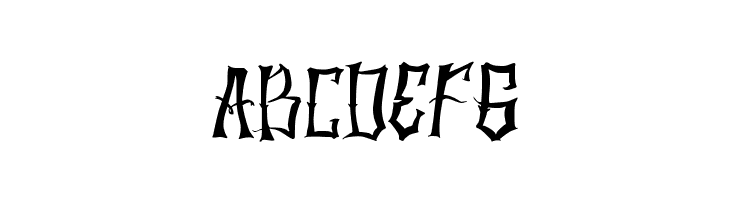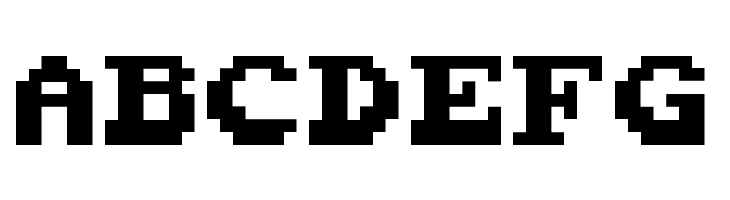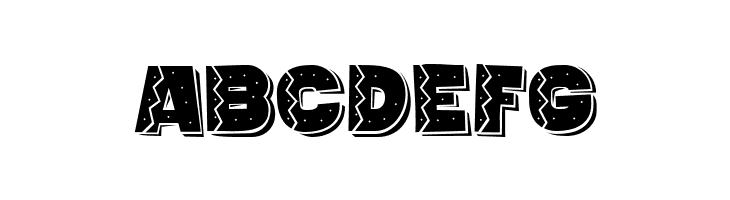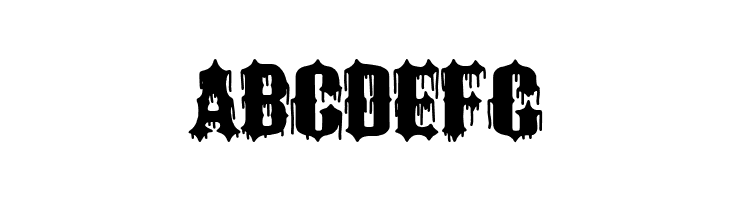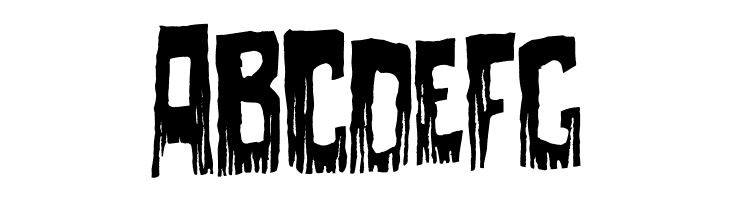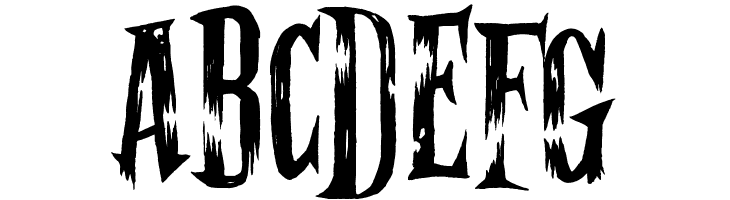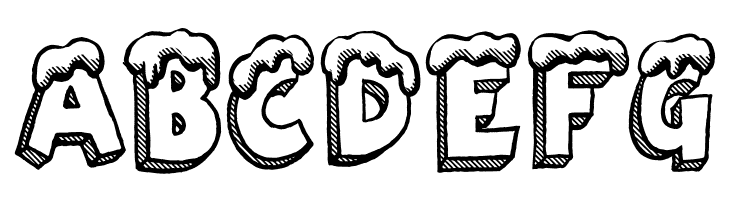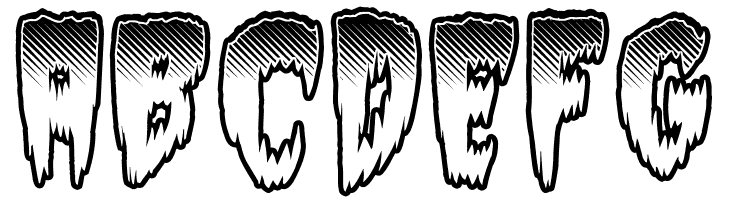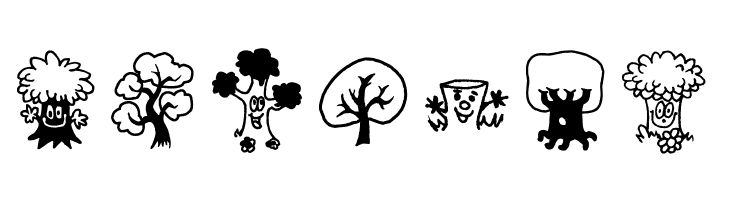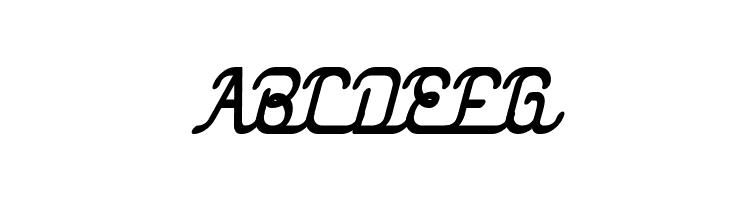
( MTF - Miss Tiina - misstiina.com )
A playful, doodle-style font with birthday-themed illustrations.
( Nirmana Visual - Sigit Dwipa - www.instagram.com/nirmanavisual/ )
A gothic, eerie font with sharp, angular characters ideal for horror themes.
( Omegaville - B.J. Winzer )
A bold, pixelated font with a retro, video game-inspired design.
( Phelan Riessen - phelanriessen.com )
A bold, dripping font ideal for spooky, Halloween-themed designs.
( Qkila - Quentin Aquila - www.creativefabrica.com/designer/qkila/ )
A bold, decorative font with playful, dripping elements perfect for festive designs.
( Vladimir Nikolic - www.coroflot.com/vladimirnikolic )
A bold, decorative font with intricate patterns, inspired by traditional Mexican design.
( Woodcutter - woodcutter Manero - www.woodcutter.es )
A bold, playful font with bubbly, irregular shapes and whimsical cutouts.
( Woodcutter - woodcutter Manero - www.woodcutter.es )
A bold, dripping font perfect for spooky or horror-themed designs.
( Woodcutter - woodcutter Manero - www.woodcutter.es )
A bold, dripping font with a spooky, horror-themed aesthetic.
A dripping, eerie font perfect for horror-themed designs.
A spooky, dripping font with a ghostly, shadowy effect.
A bold, decorative font with snow-capped letters and a festive winter theme.
A bold, dripping font with a horror-inspired, decorative style.
Hand-drawn decorative font with playful tree illustrations.
A bold, cursive script font with elegant, flowing connections.
A bold, playful font with rounded edges, perfect for casual and inviting designs.
( 010Bus )
A pixelated, retro-style font inspired by early digital displays.
( AngeliQ - angeliq.deviantart.com )
A decorative font featuring expressive anime eye designs.
( BK Free Fonts )
A bone-themed decorative font perfect for spooky designs.
( Barb Johnson )
A sports-themed font with letters in helmets and numbers on jerseys.
( Blue Jay Font Studio - katzfonts.50megs.com/bj1.html )
A playful, dragon-themed decorative font perfect for fantasy projects.
( Blue Jay Font Studio - katzfonts.50megs.com/bj1.html )
A festive decorative font featuring characters within holly-adorned bells.
( Christopher Jarman - www.quilljar.btinternet.co.uk/fonts.html )
A playful, bold font with thick, rounded characters and a bubbly appearance.
( FBFonts - www.fontspace.com/profile/fbfonts )
A festive, decorative font with playful holiday embellishments.
( Font Nook - www.geocities.com/weakestlink11/ )
A festive, decorative font featuring Santa Claus and holiday elements.
( Font Nook - www.geocities.com/weakestlink11/ )
A playful, winter-themed decorative font with bold characters and festive elements.
( Foundmyfont Studio Typeface LTD - www.foundmyfont.com )
An elegant, flowing script font with ornate, cursive letters and a festive feel.
( Gyrl Friday - katgyrl.com/fonts/ )
A playful font with characters inside steaming coffee cups.
( Joorgemoron@gmail.com )
A spooky, dripping font perfect for Halloween themes.
( KELGE Fonts - www.behance.net/contactkel17e1 )
A sharp, elongated font with a mysterious and eerie style.
( Katz Fontz - katzfonts.50megs.com/kg.html )
A whimsical, Halloween-themed font with scarecrow silhouettes and hand-drawn style.
( LeChefRene - members.aol.com/lcrfonts/ )
A bold, decorative font with snowflake motifs for a festive look.
( Livin Hell - www.geocities.com/crizcrack666/fonts.html )
A bold, jagged font with a haunting, hand-drawn style.
( London's Letters - www.londonsletters.com/ )
A whimsical font with characters inside frothy beer mugs, ideal for festive designs.
( London's Letters - www.londonsletters.com/ )
A festive, decorative font with holly embellishments on each character.